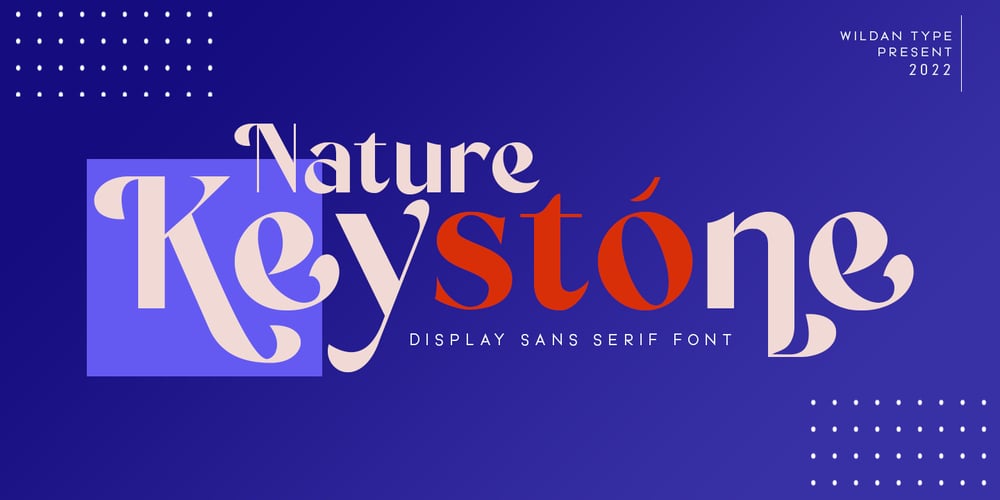
Nature Keystone Font Family was designed by Wildan Carbon and published by Wildan Type. Nature Keystone contains 2 styles and family package options. Nature Keystone is a modern sans serif font with a unique ligature and aletrnate style. A simple sans serif with special impression. Combaine with high contrast and slat style perfect for classy logo signs, fashion heads & editorial designs, branding projects, Clothing Branding, packaging, magazine headings, advertising, T-shirts, postcards and much more.